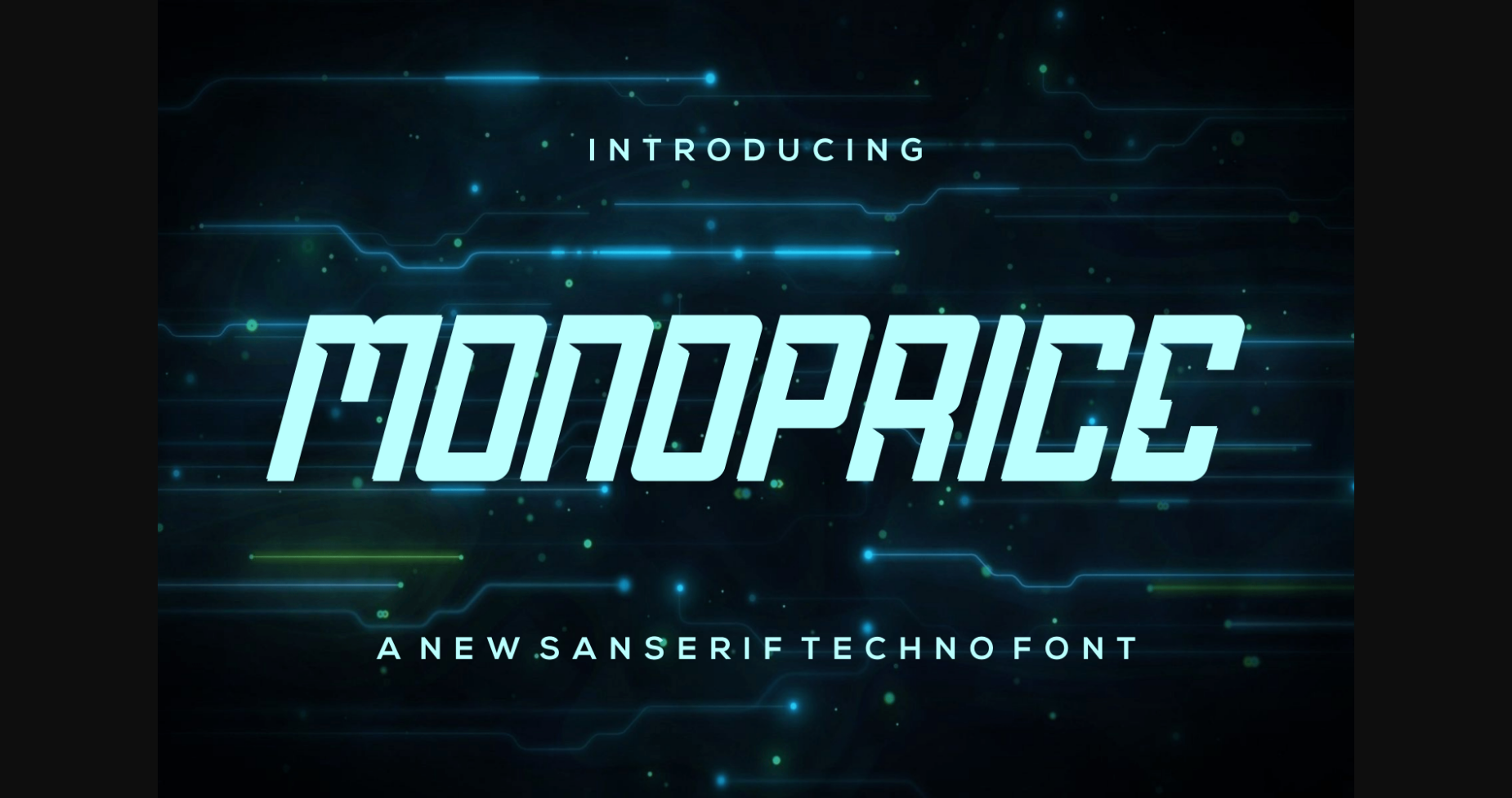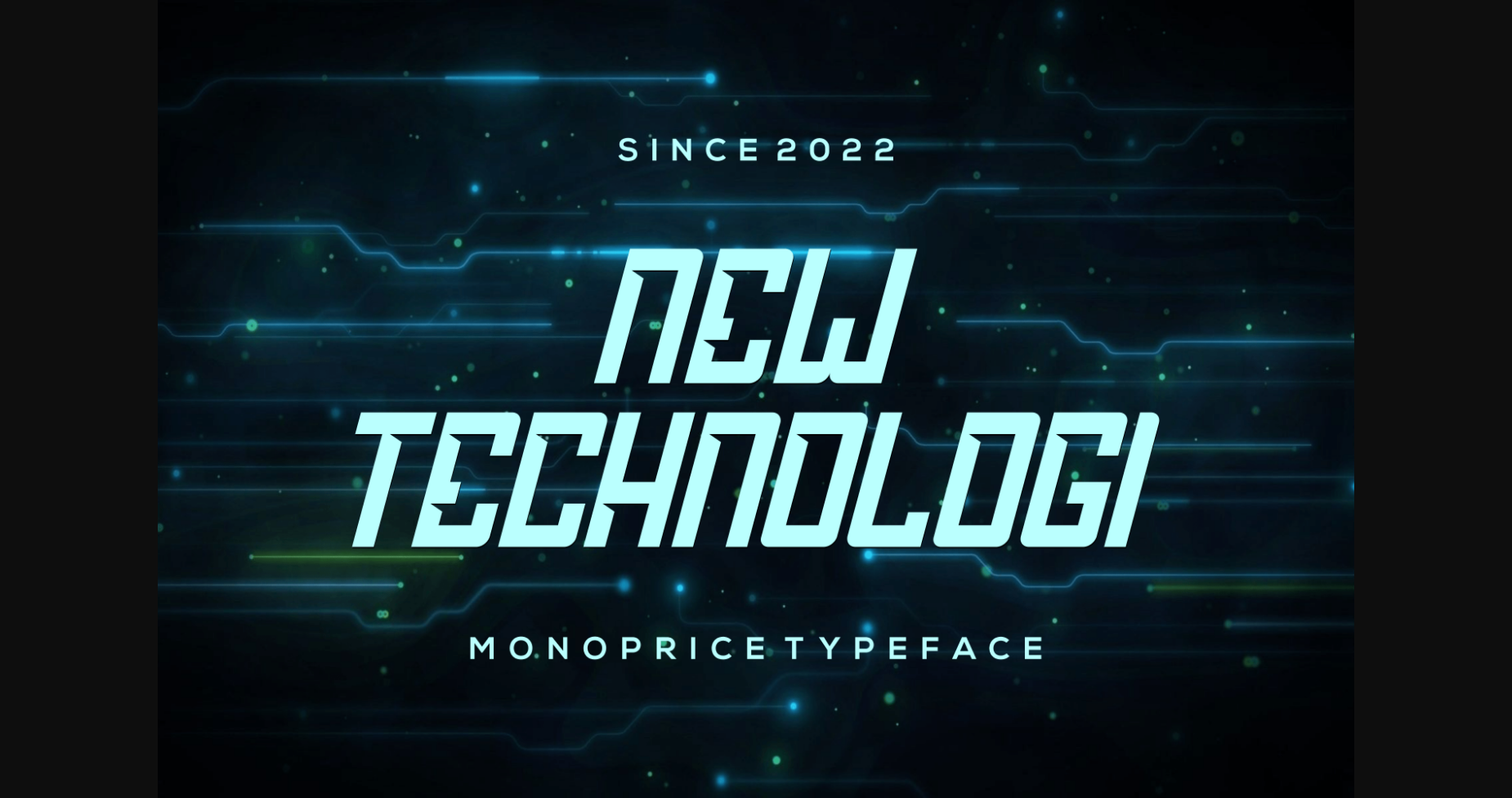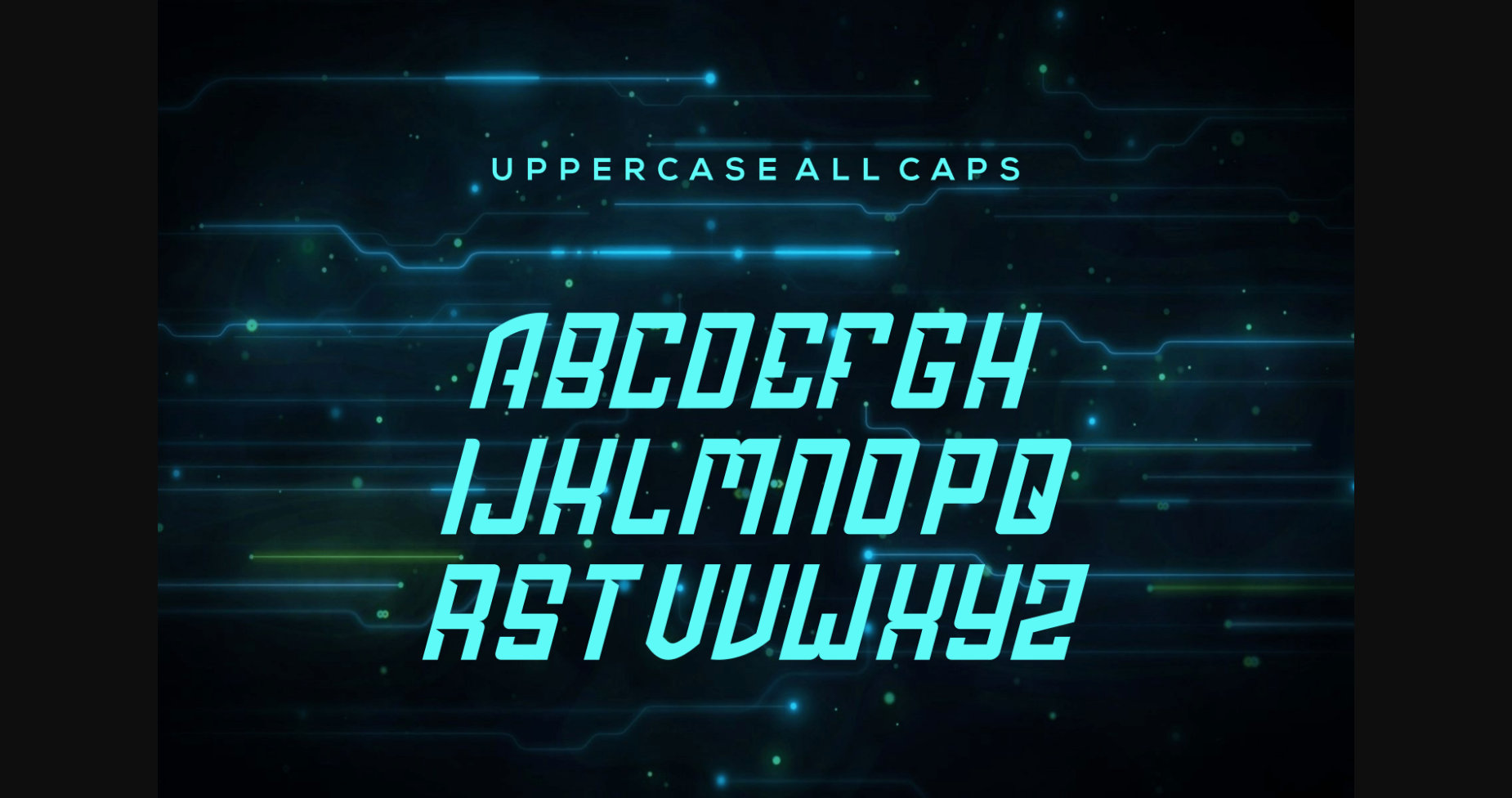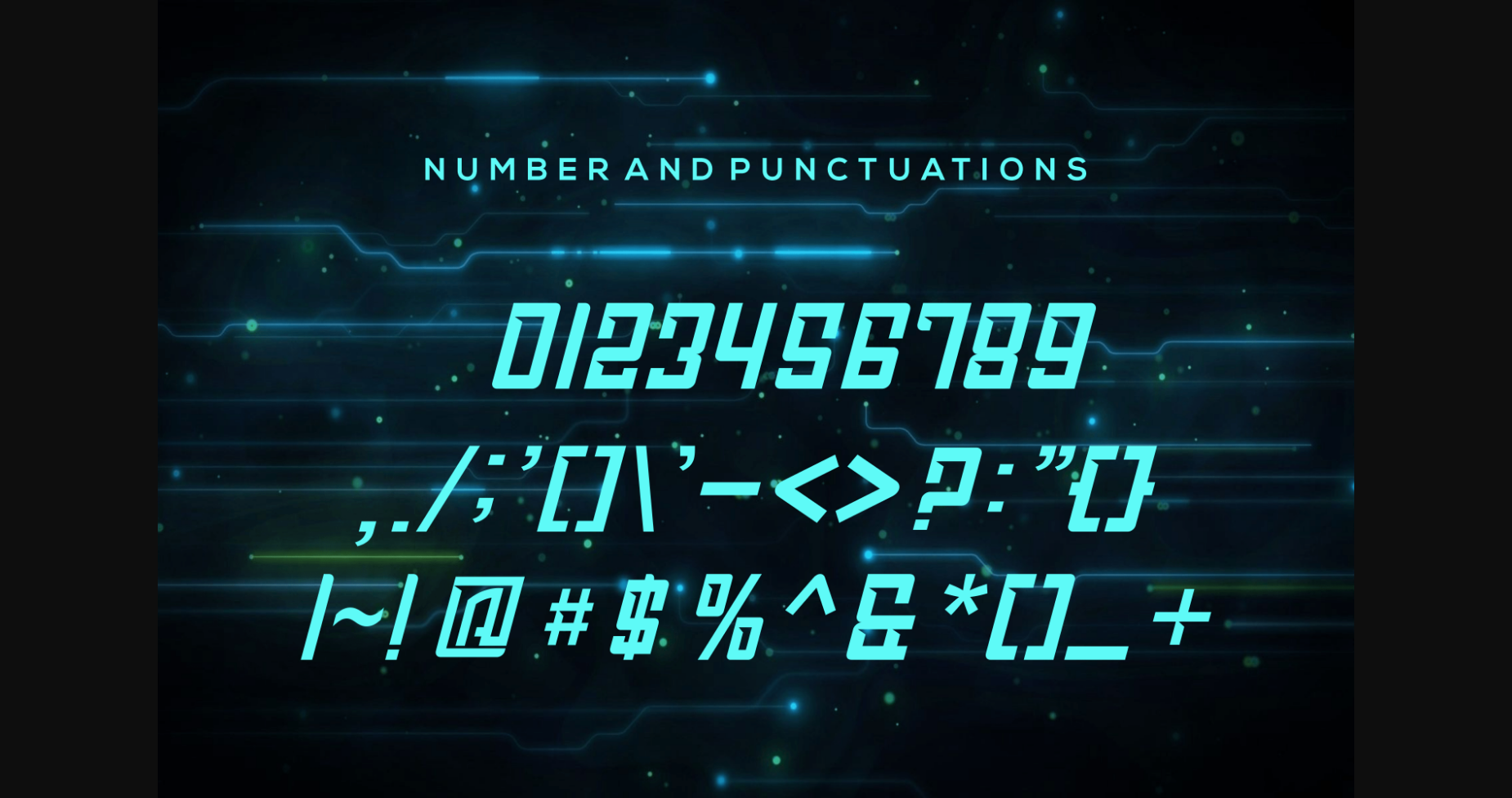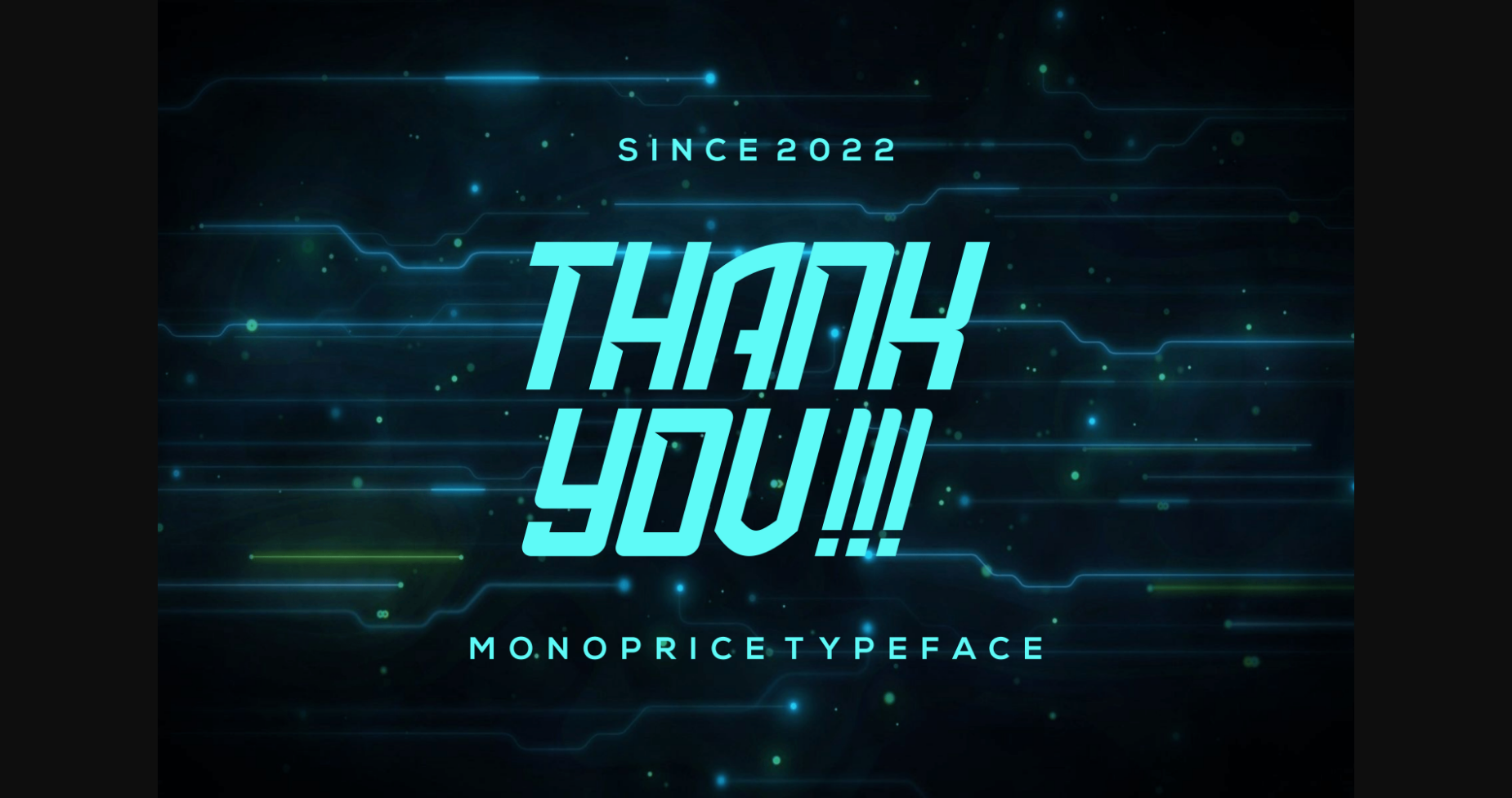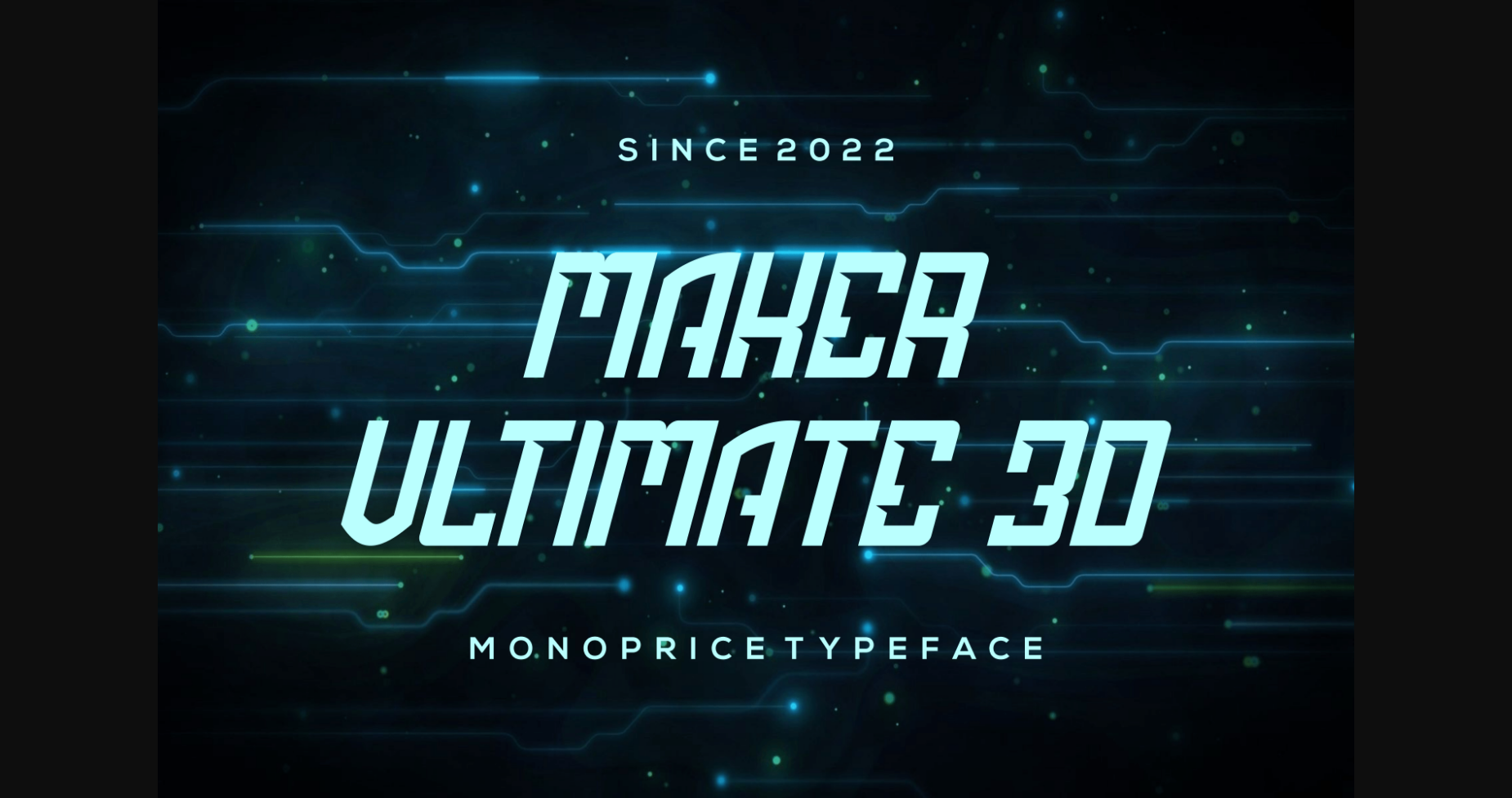
HomeSans Serif FontsMonoprice Font Sans Serif Fonts Monoprice Font FacebookXPinterestWhatsApp 1 of 8 ... Monoprice Font Poster 2... Monoprice Font Poster 3... Monoprice Font Poster 4... Monoprice Font Poster 5... Monoprice Font Poster 6... Monoprice Font Poster 7... Monoprice Font Poster 8... About Monoprice Font Monoprice is a sans serif font with a charming style and interesting look. This font is suitable for those who want a design that displays an interesting side but is still relevant for a charming, modern look. DOWNLOAD NOW People also explored Mr. Satan Font Beauty Magnolia Line Monogram Font Royal Sigils Font Shookup Wally Rowan Font Riogrande Font Alaysa Font Luckylang Font 352 0 TagsMonoprice Font Previous articleHergola FontNext articleVioletto Font LEAVE A REPLY Cancel reply Comment: Please enter your comment! Name:* Please enter your name here Email:* You have entered an incorrect email address! Please enter your email address here Website: Save my name, email, and website in this browser for the next time I comment. Personal Use Free Mandara Personal Use Free Read more about this font Cleopatra Font Personal Use Free Read more about this font Squealer Personal Use Free Read more about this font Wordan Personal Use Free Read more about this font BLOG 5 Fonts That Will Dominate Design Trends in 2026 5 Fonts for 2026 That Will Dominate Design Trends Typography plays a critical role in visual communication, and as we look ahead to 2026, it’s... Transform Your Website: Elevate Your Typography with 7 Best Web Font Generators Free vs Paid Fonts: Why Investing in Premium Fonts Is Worth It Free Fonts Risk: Why Free Fonts Can Be Dangerous for Designers